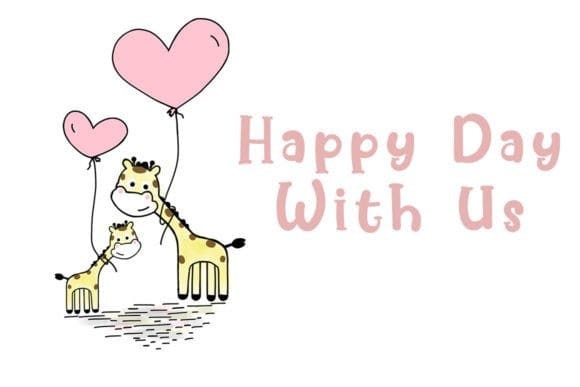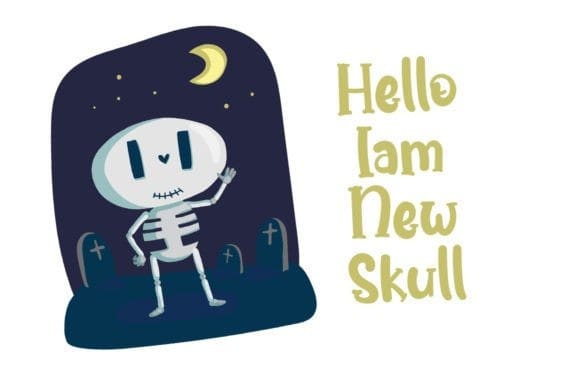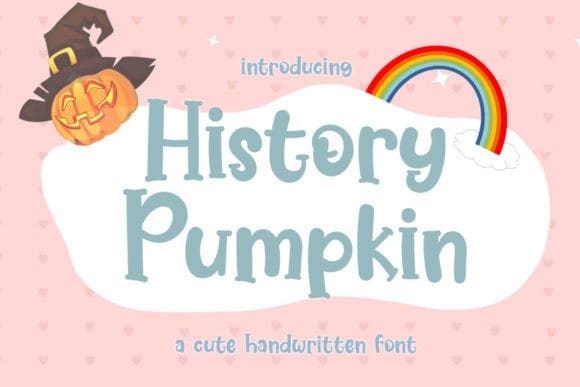
History Pumpkin Font
History Pumpkin Font is a beautiful and sweet handwritten font. This font will look amazing on a large variety of projects, both formal and informal. It will add an incredibly joyful touch to your designs.